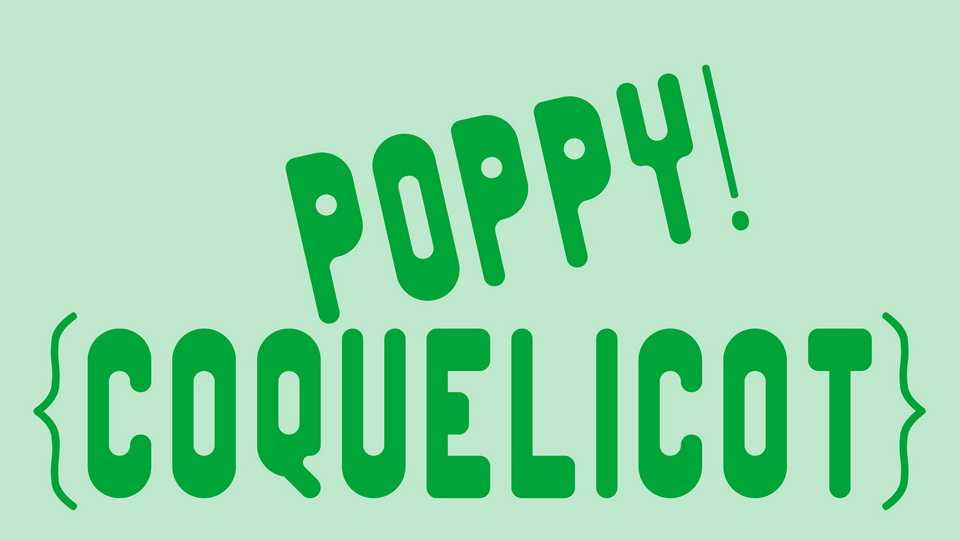
Download Poppy font, a rounded geometric typeface designed from a modular grid. Poppy features a clean and balanced design, with each letter exuding a sense of modern simplicity.
Designer: Milène Laforge